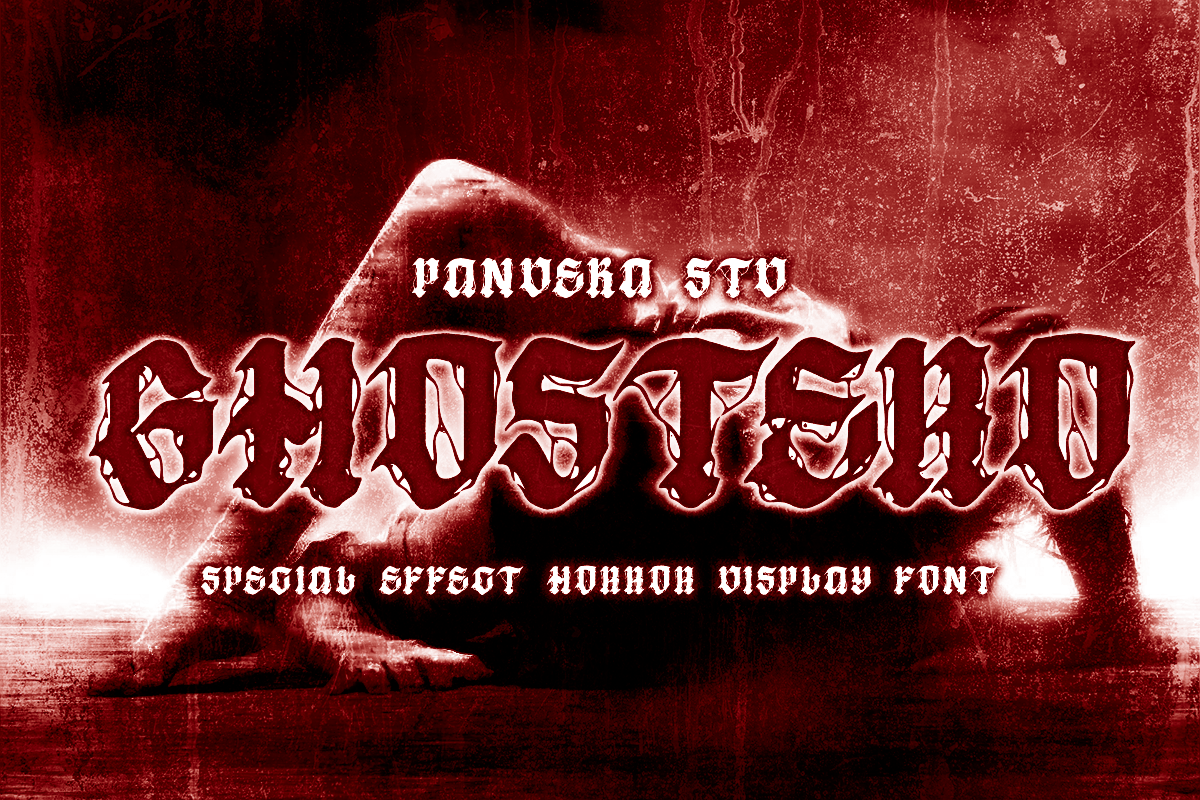
Ghostero - Horror Display Font Free Download is a chilling and dramatic typeface crafted for spooky, fear-filled design work. With its distorted forms, sharp edges, and ghostly atmosphere, this font is perfect for horror movie posters, haunted house flyers, Halloween branding, and eerie book covers.
Ghostero - Horror Display Font Free Download captures the essence of the supernatural. Every letter feels like it’s creeping out of the shadows—twisted, jagged, and full of unease. Whether you’re designing titles for horror games or creating terrifying merch, Ghostero adds a heavy dose of suspense and fear.
It thrives in blood-red palettes, grungy textures, and dark, atmospheric compositions. Pair it with smoky effects or distressed backgrounds to unleash its full haunted potential.
Let your typography whisper from the dark with Ghostero—where every word feels like it came from the other side.